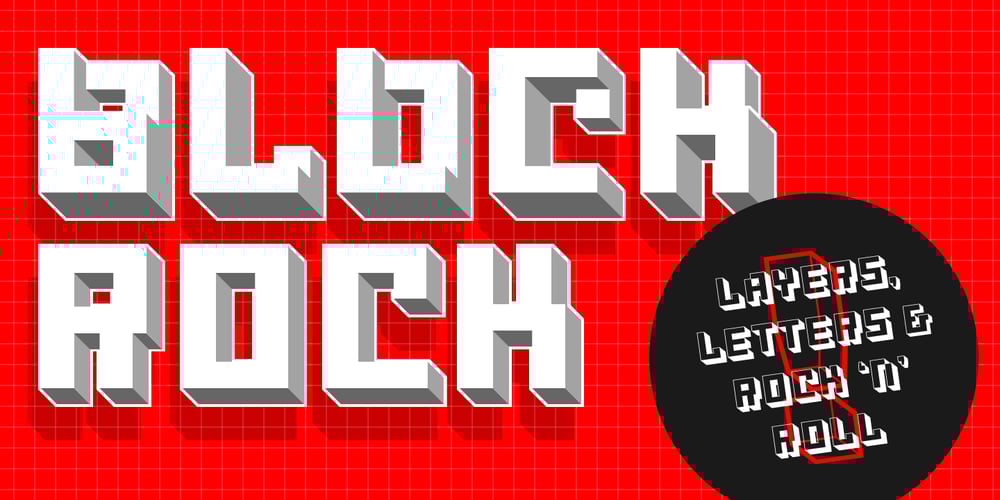
Blockrock Font Family was designed by Viktor Nübel and published by Volcano Type. Blockrock contains 12 styles and family package options. Blockrock is an OpenType typeface that lets you build letters right away. Use the different weights to construct 3-dimensional letter-buildings. It is inspired by the apartment living blocks in the center of East Berlin built in the 60s. The regular font contains more complex letter buildings, while the simple font has simplified and plain letters in two different levels. Blockrock comes with kerning and a full Western and Central European language support, including Baltic and Turkish.